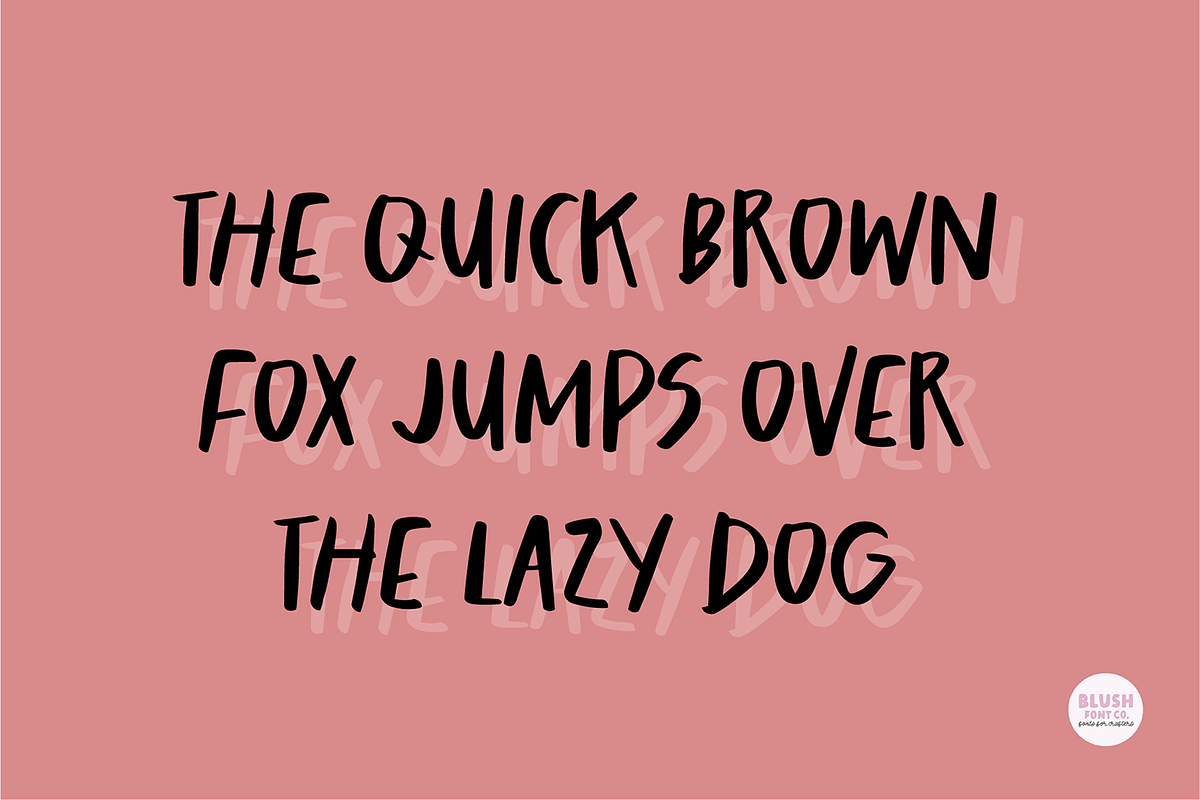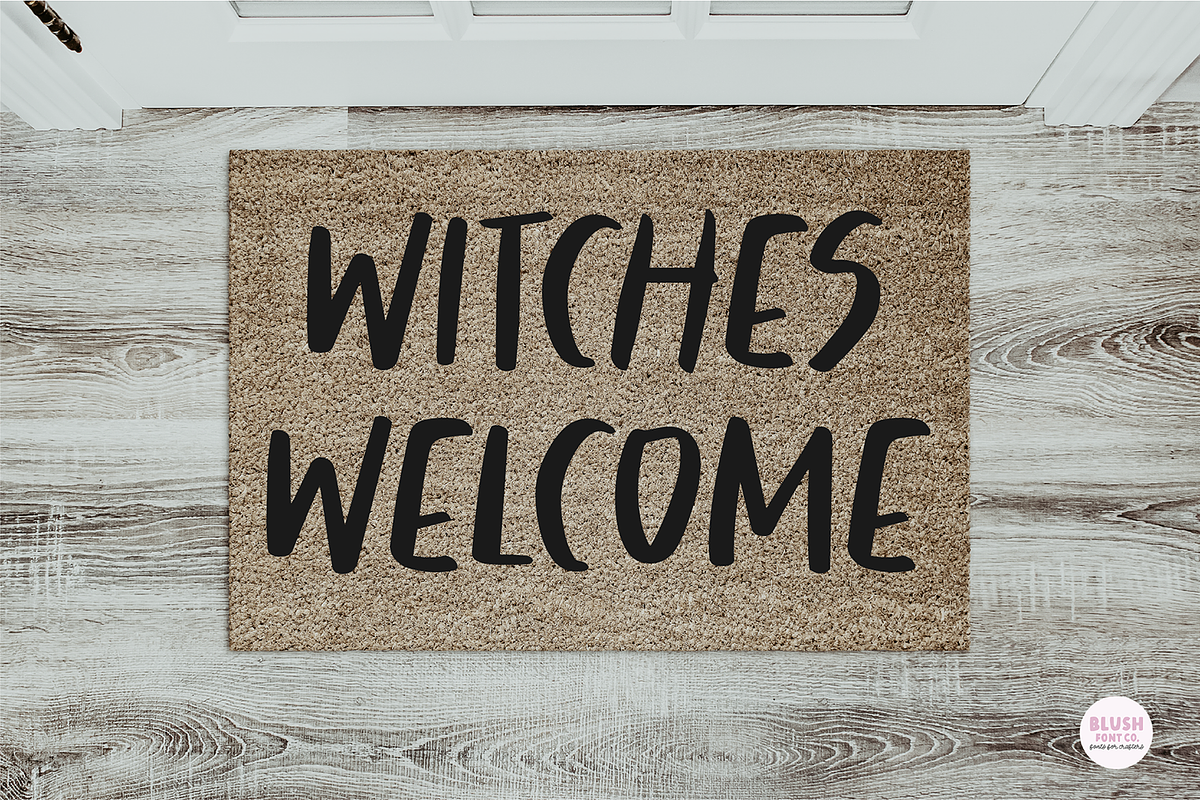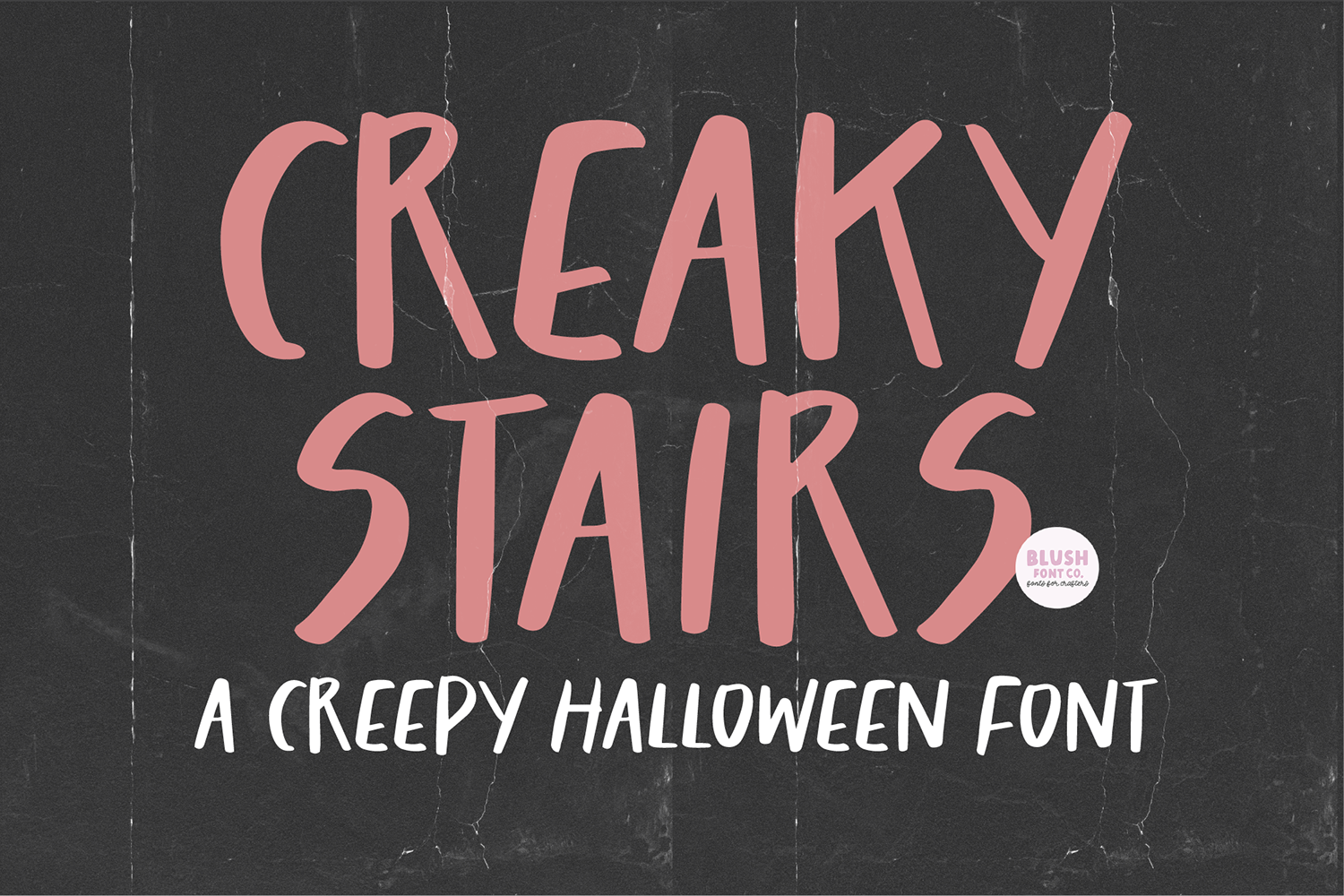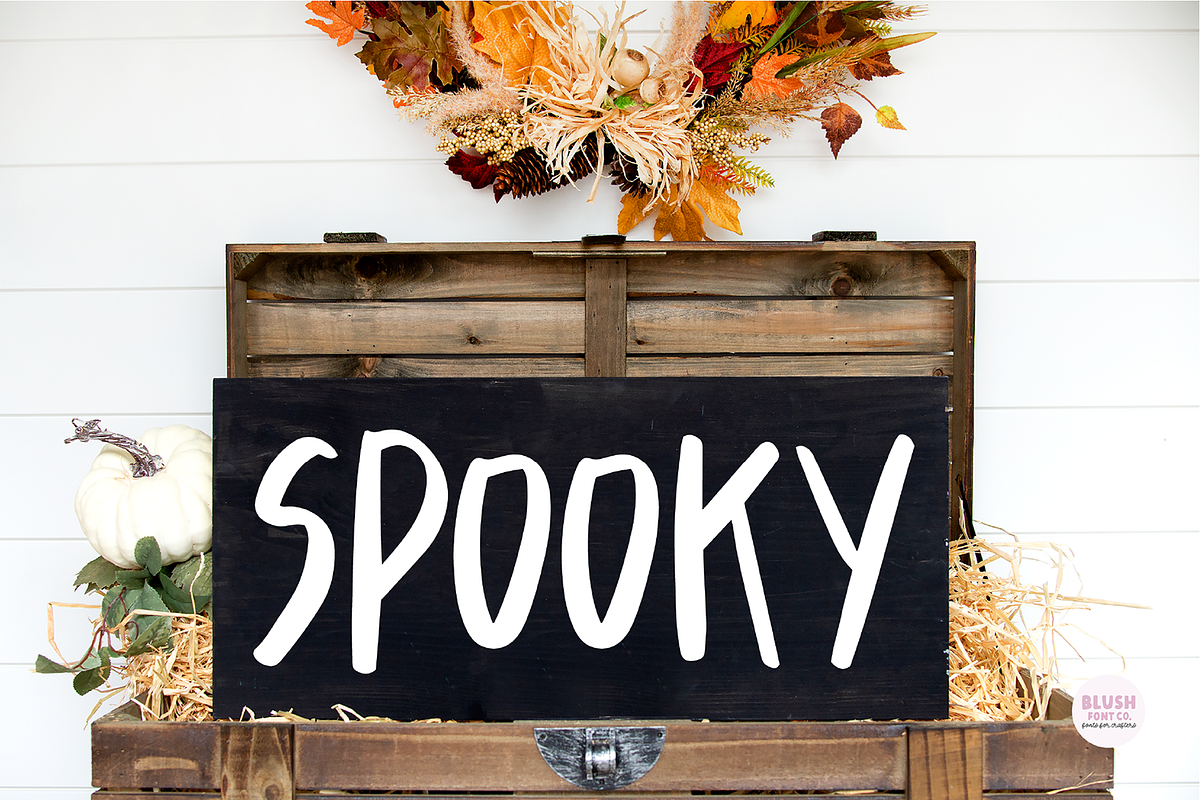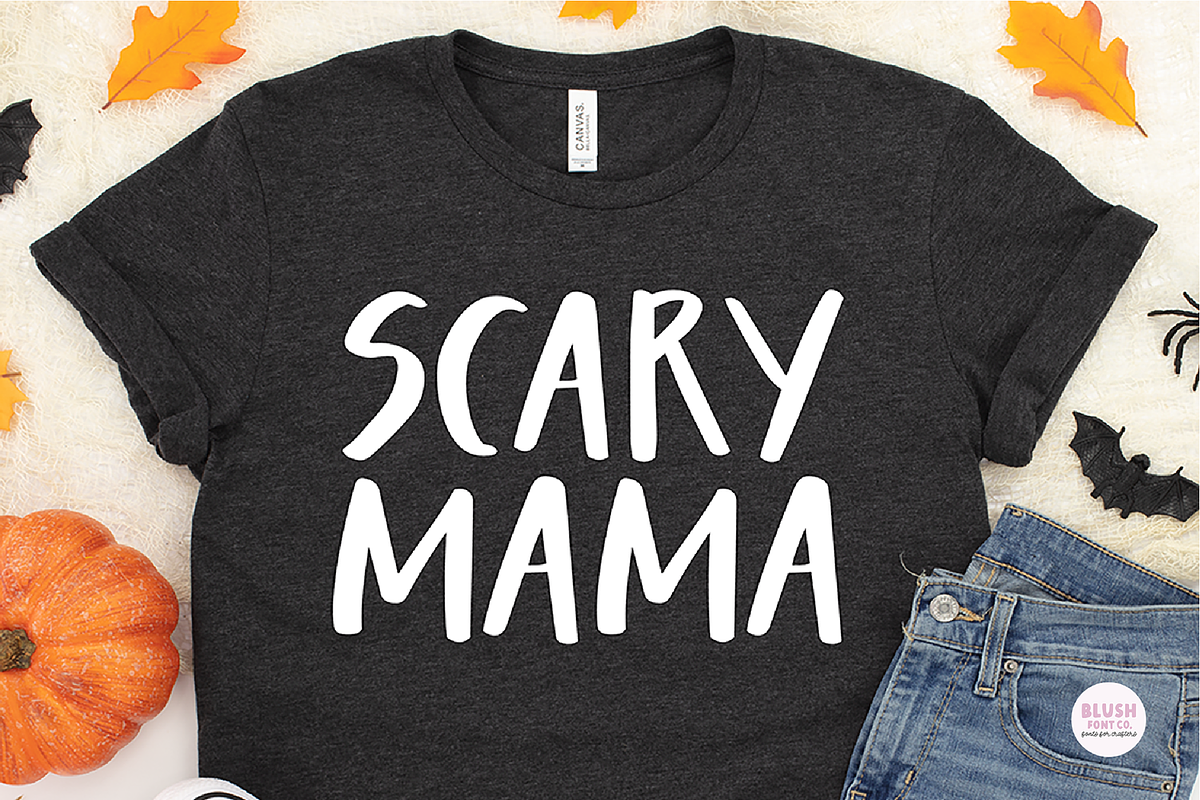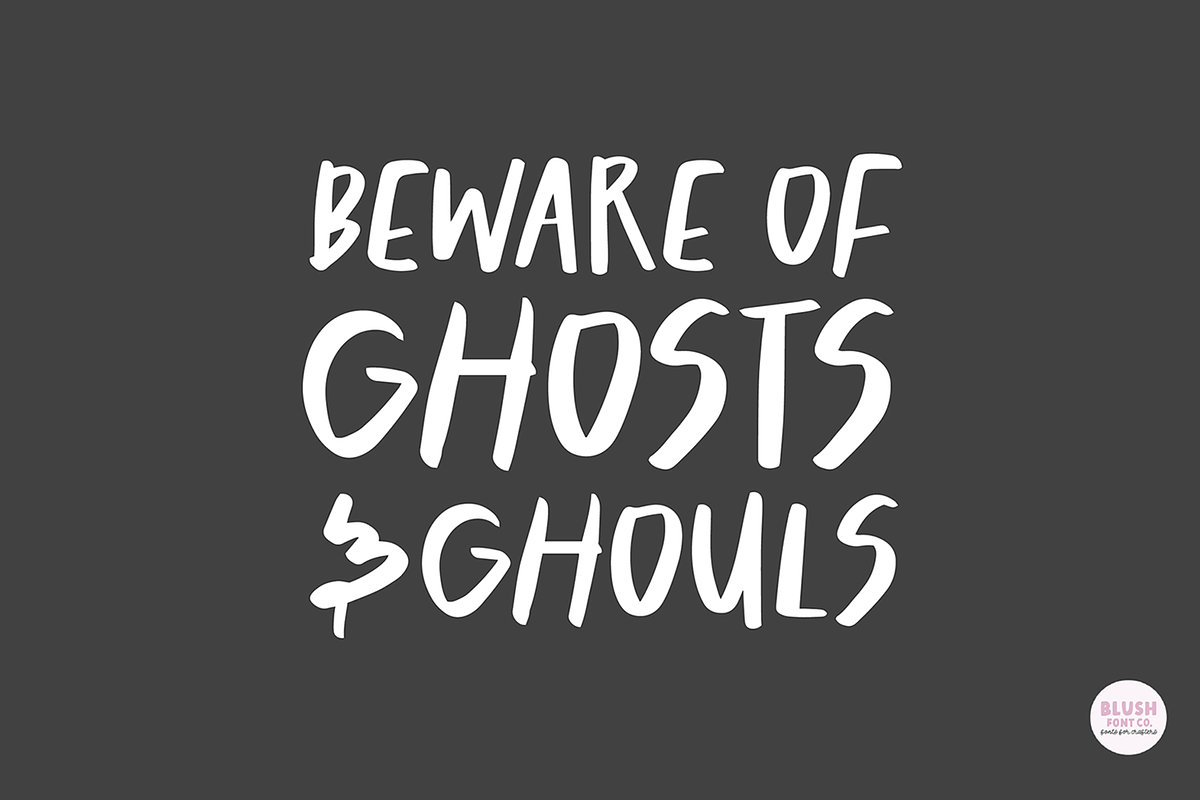
CREAKY STAIRS Scary Halloween Font
"Creaky Stairs"
A creepy and decorative Halloween font.
This font comes with all caps letters, numbers, and basic punctuation.